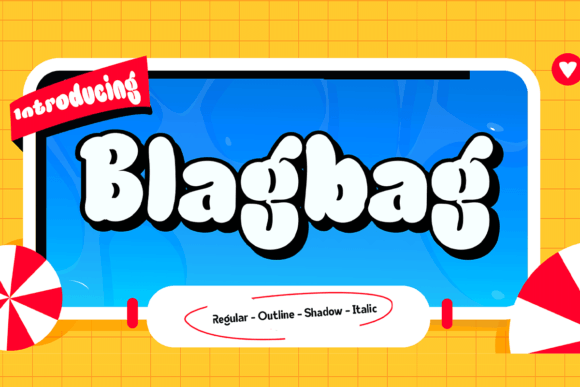
Dive into the realm of urban expression with Blagbag Font, a graffiti-inspired masterpiece from Differentialtype. Its soft edges and dynamic flow bring a touch of rebellion to your designs, making it the perfect choice for music posters, titles, branding projects, logos, and more.
With six distinct styles, Blagbag offers endless creative possibilities. Blend and combine them to craft unique and eye-catching visuals that command attention. Unleash your inner artist and let Blagbag's urban vibes transform your designs into captivating masterpieces.
Stand out from the crowd with Blagbag Font. Let its bold strokes and edgy character breathe life into your projects, capturing the essence of raw creativity. Experience the thrill of urban art and watch as your designs take on a new level of sophistication and grit.
Blagbag Font is the ultimate weapon in your design arsenal, ready to conquer any creative challenge. Join the ranks of design pioneers who embrace Blagbag's urban charm and let your imagination run wild. Unleash the power of graffiti art and create designs that resonate with passion, energy, and pure artistic flair.